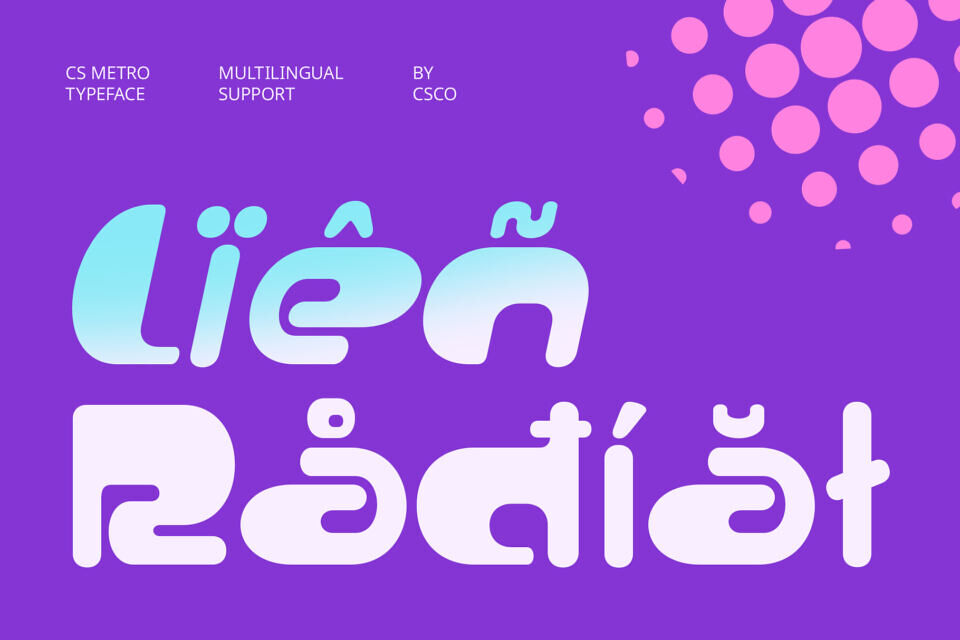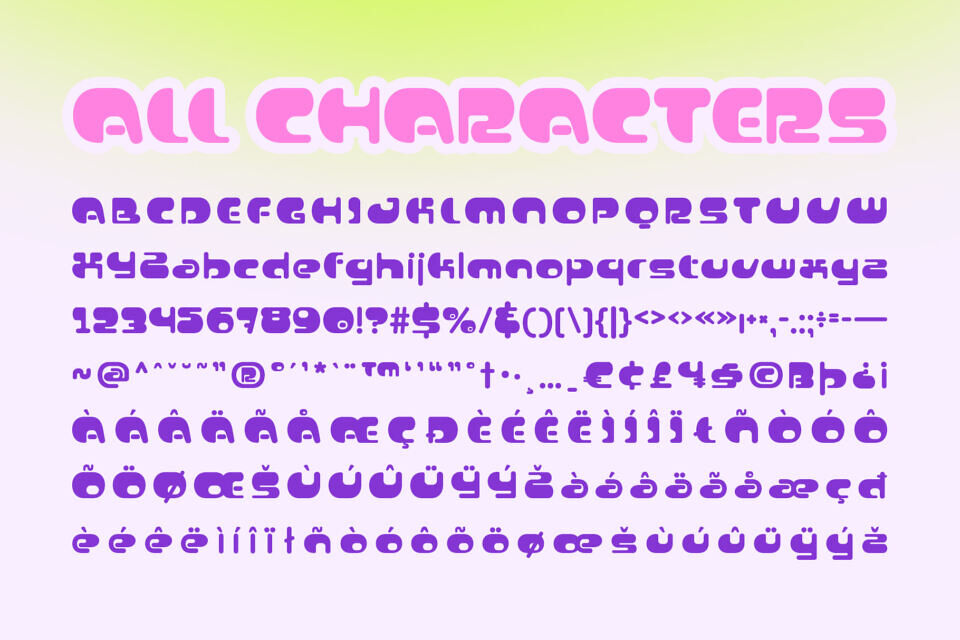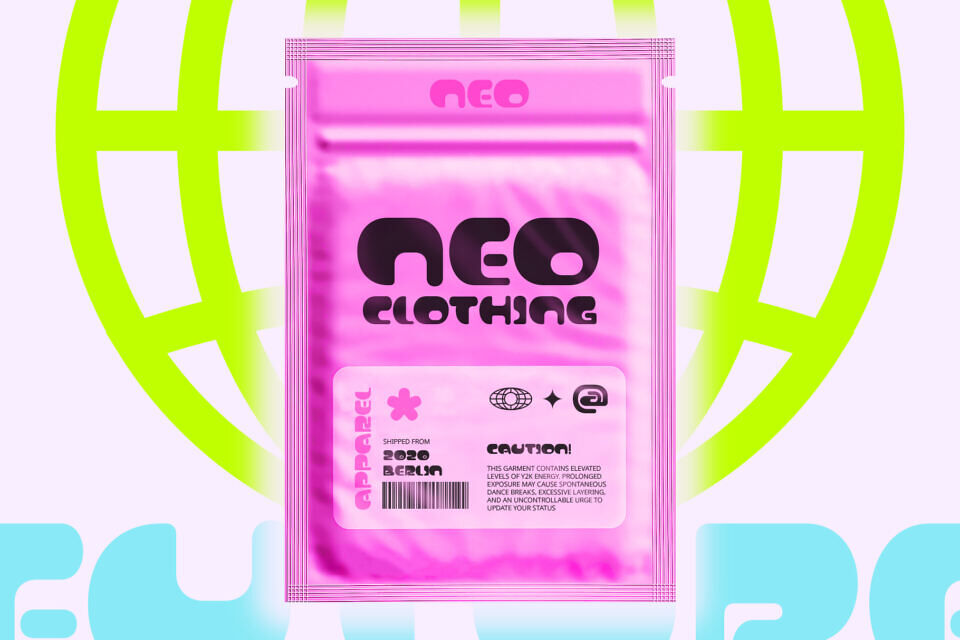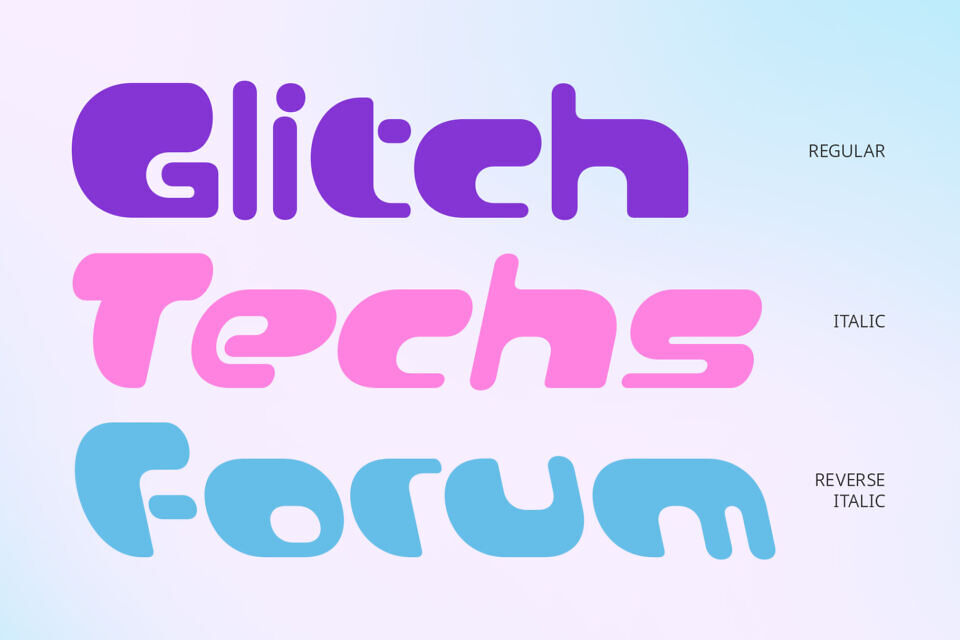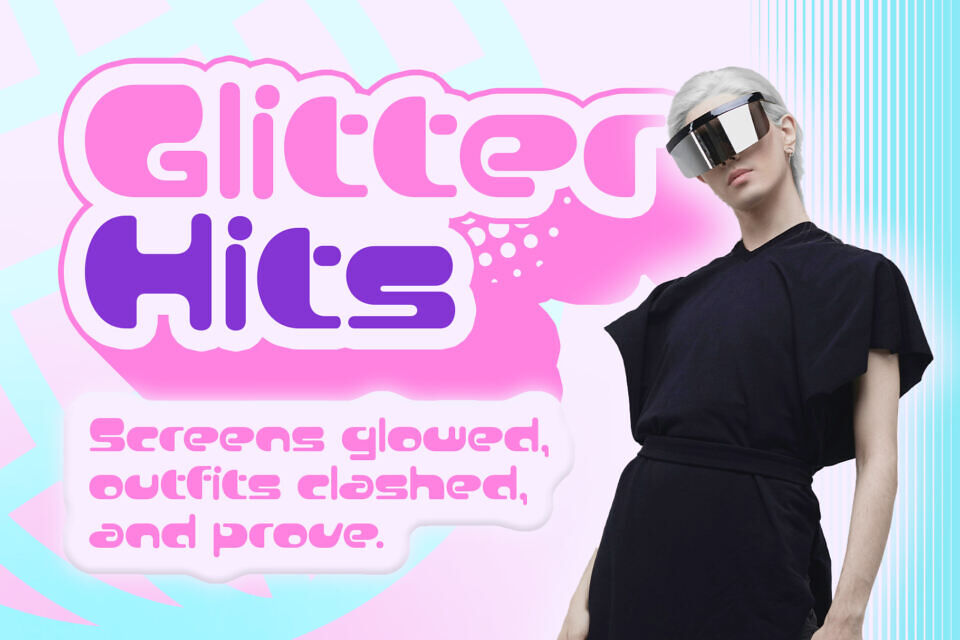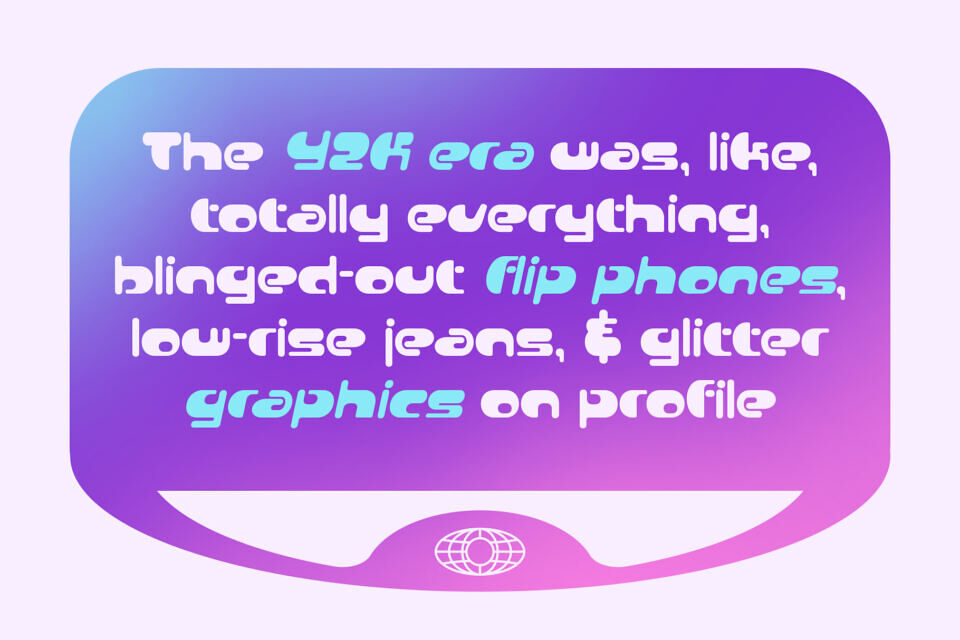
CS Metro Font
CS Metro is a bold display font inspired by the Y2K aesthetic, bringing together bubbly curves, chunky letterforms, and funky energy. Its rounded and plump shapes evoke a sense of fun, optimism, and digital nostalgia—perfect for making a bold statement in any modern design.
Channeling the spirit of the early 2000s, CS Metro blends pop culture, tech-inspired styling, and retro charm into one cohesive typeface. The playful geometry and softened edges reflect a time of futuristic dreams, digital exploration, and creative expression—ideal for brands and projects aiming to tap into that iconic era.
Whether you’re working on posters, fashion branding, music visuals, or editorial layouts, CS Metro adds a vibrant and expressive layer to your design. Its funky form draws attention instantly, making it ideal for headlines, logo design, and anything that calls for a loud, joyful personality.